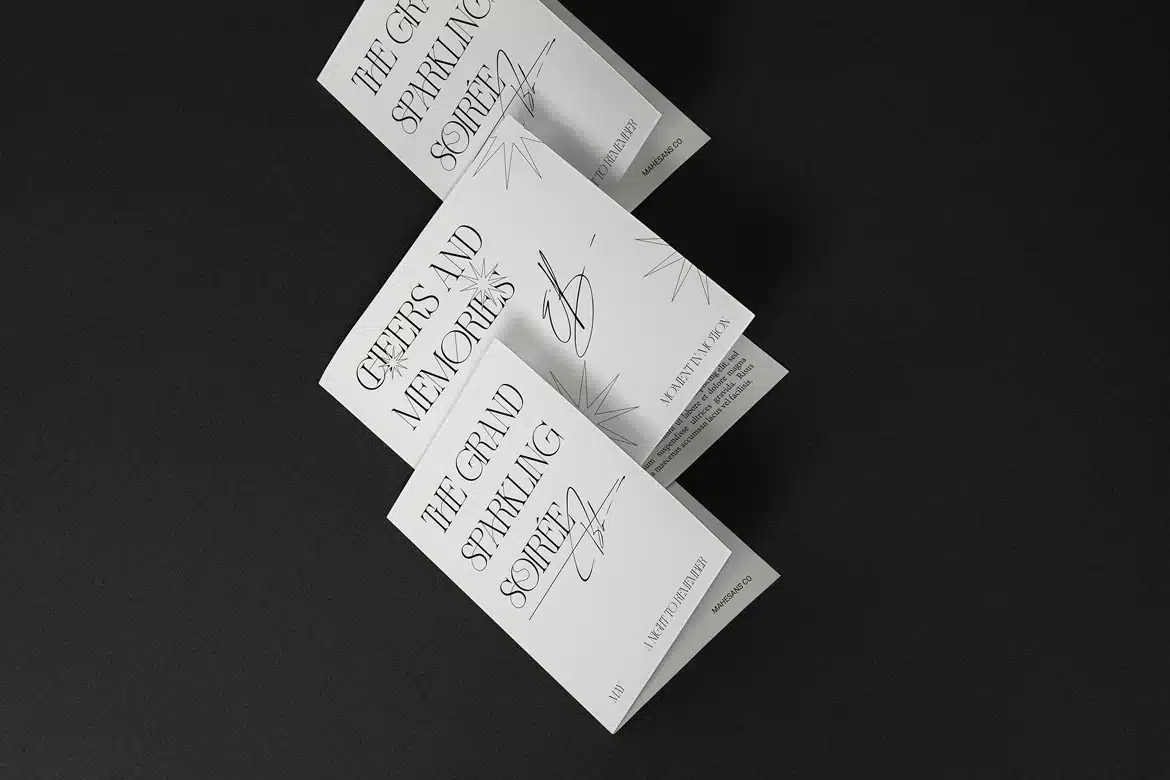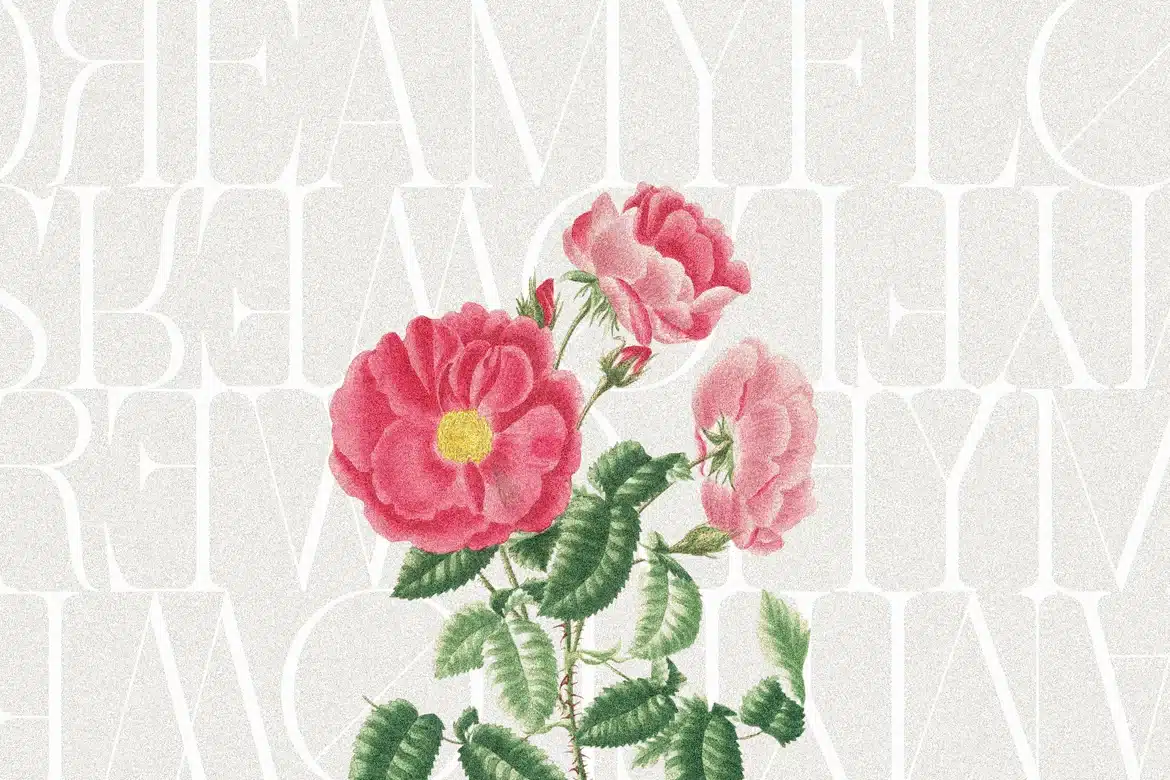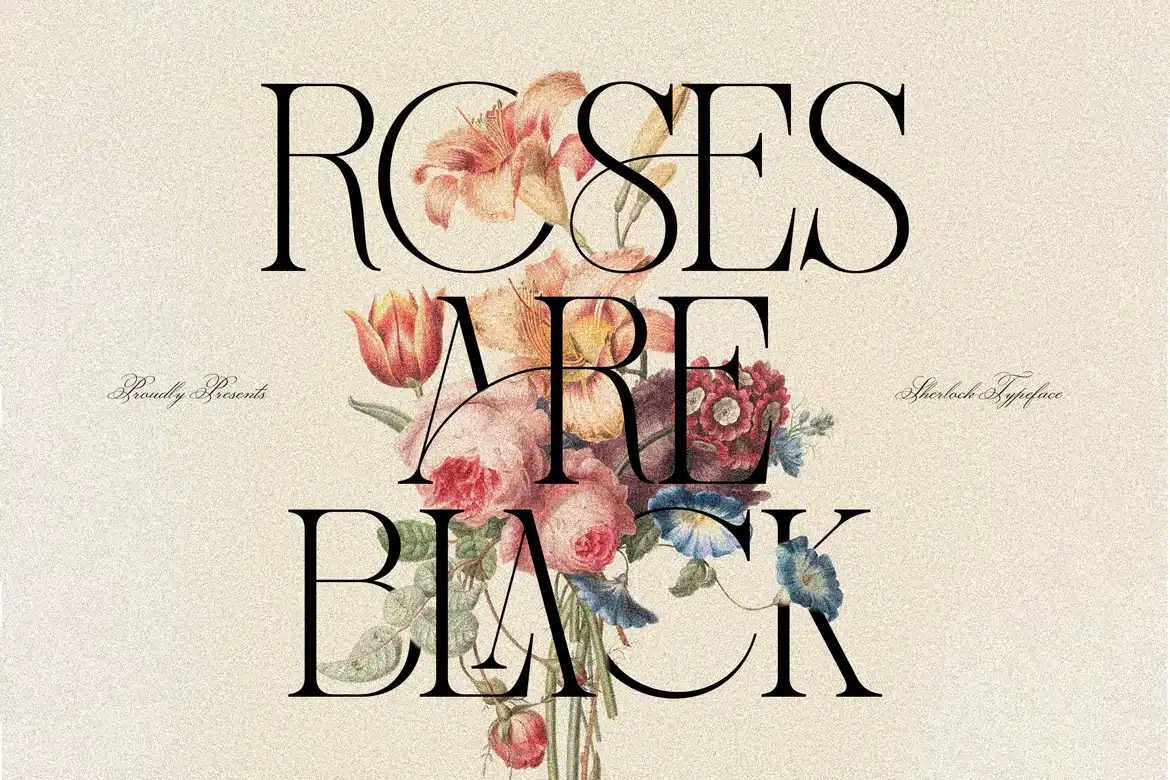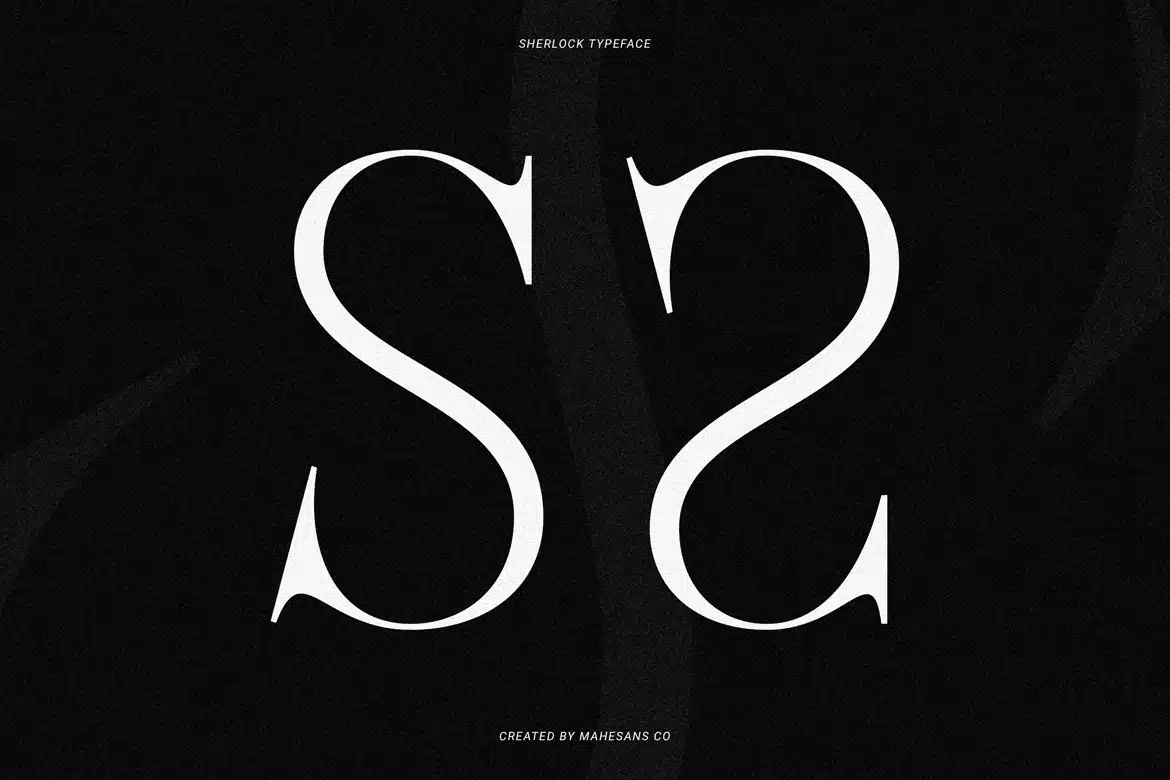
Sherlock – Elegant Classic Serif Font
Sherlock is a refined serif typeface that embodies elegance, mystery, and timeless sophistication. Inspired by vintage book covers and classical art aesthetics, Sherlock brings a perfect balance between sharp serifs and delicate curves. Each letter is designed with precision, featuring unique ligatures and graceful alternates that elevate your typography to a whole new level of charm.
- Alternates & Ligatures
- Multilanguage